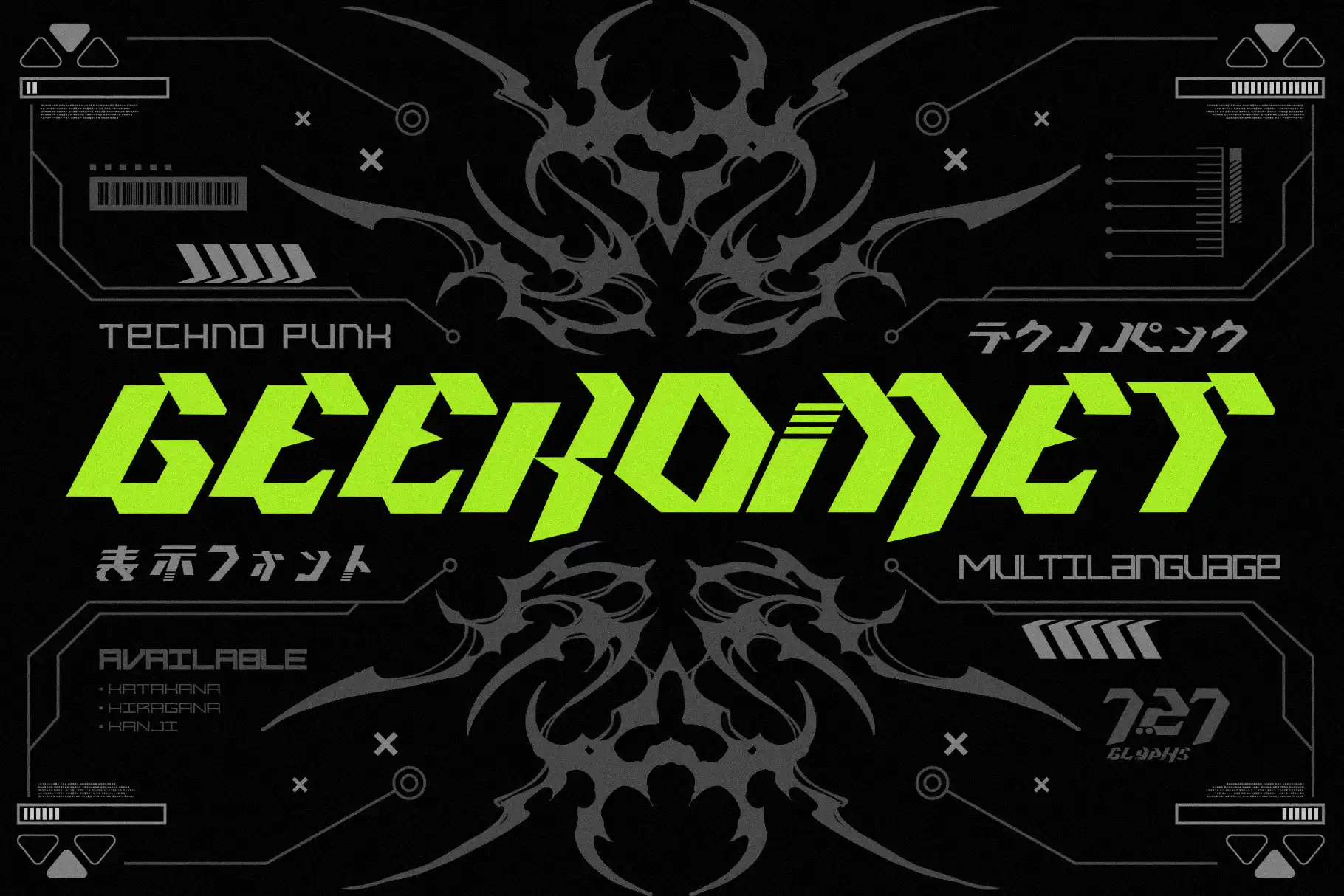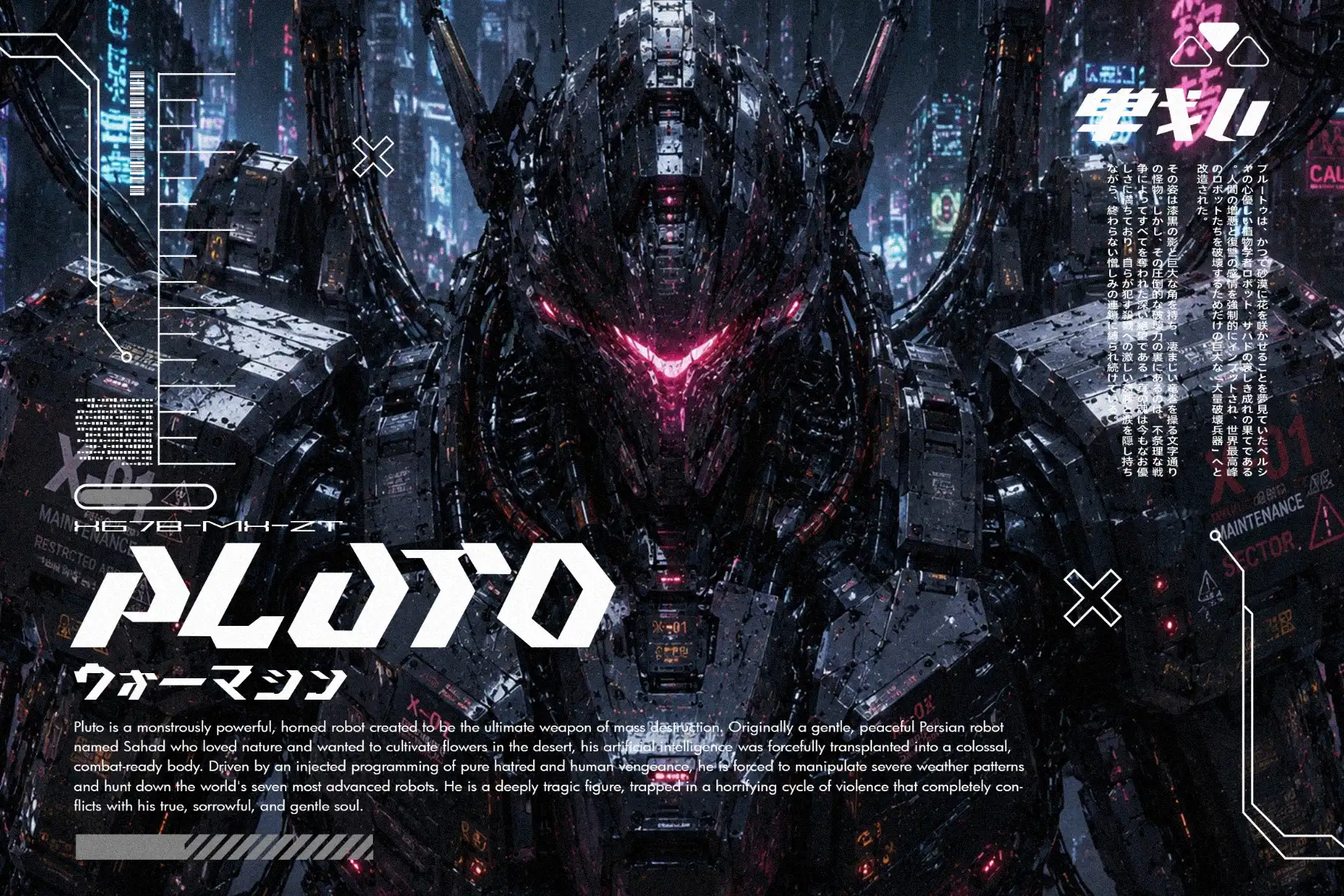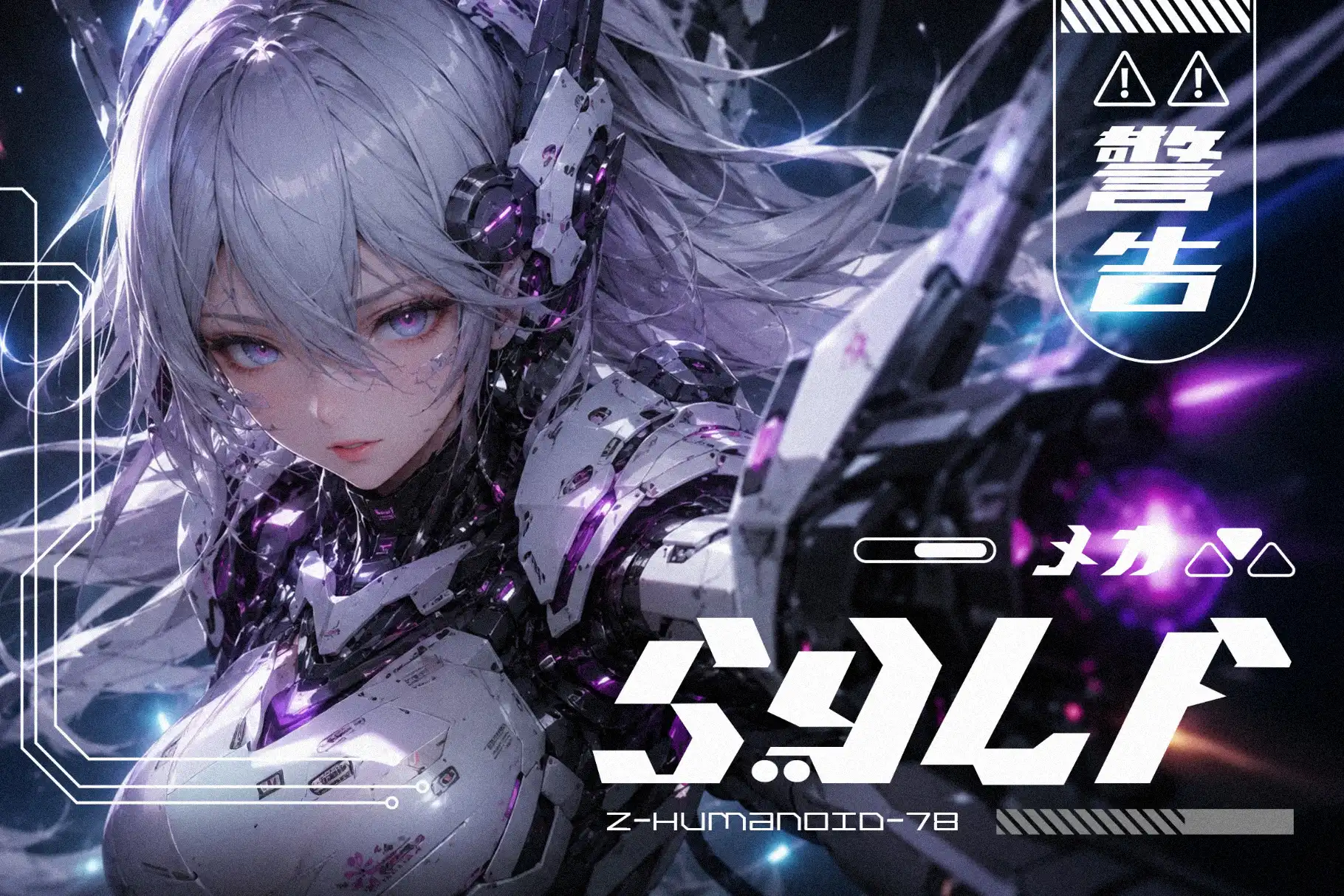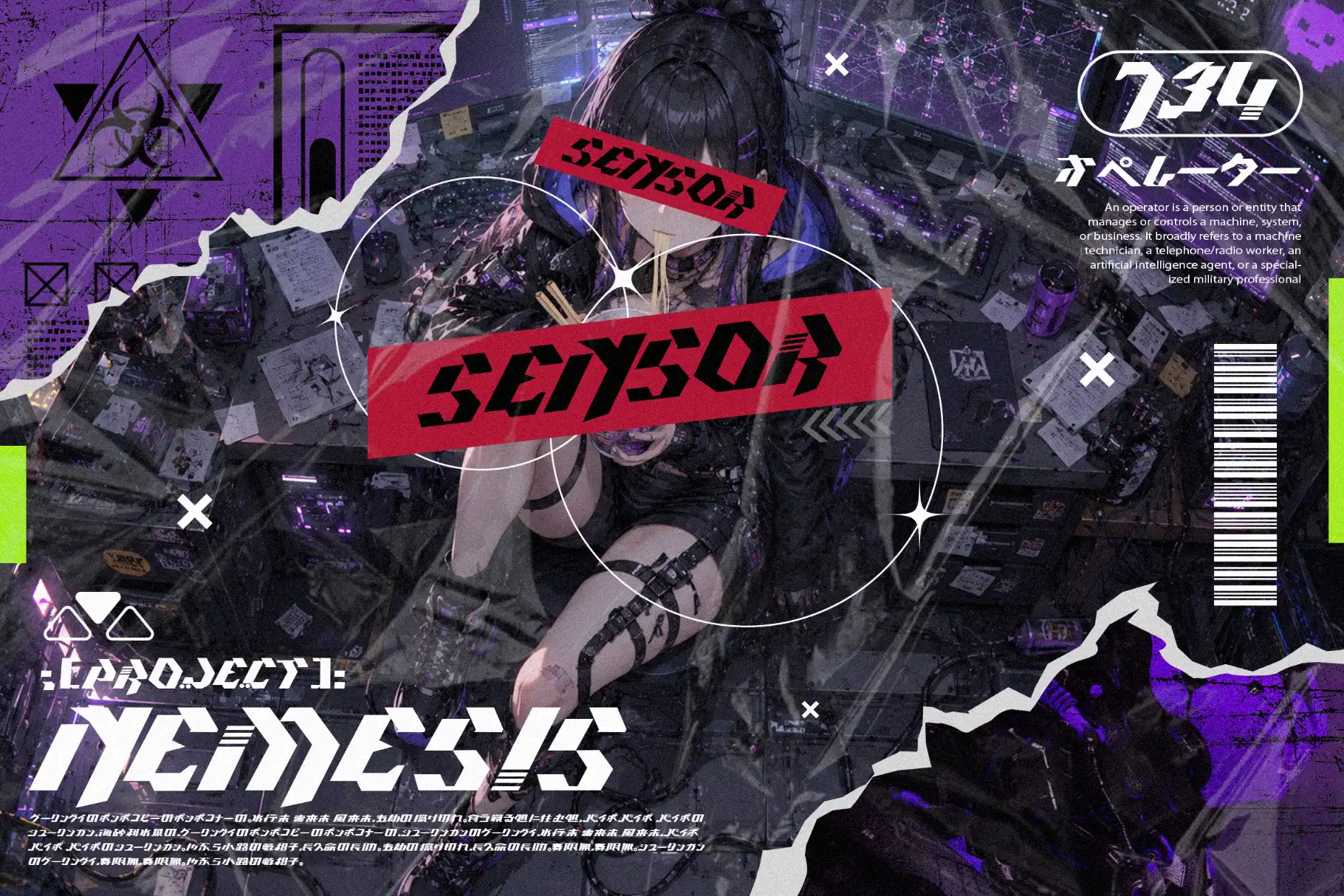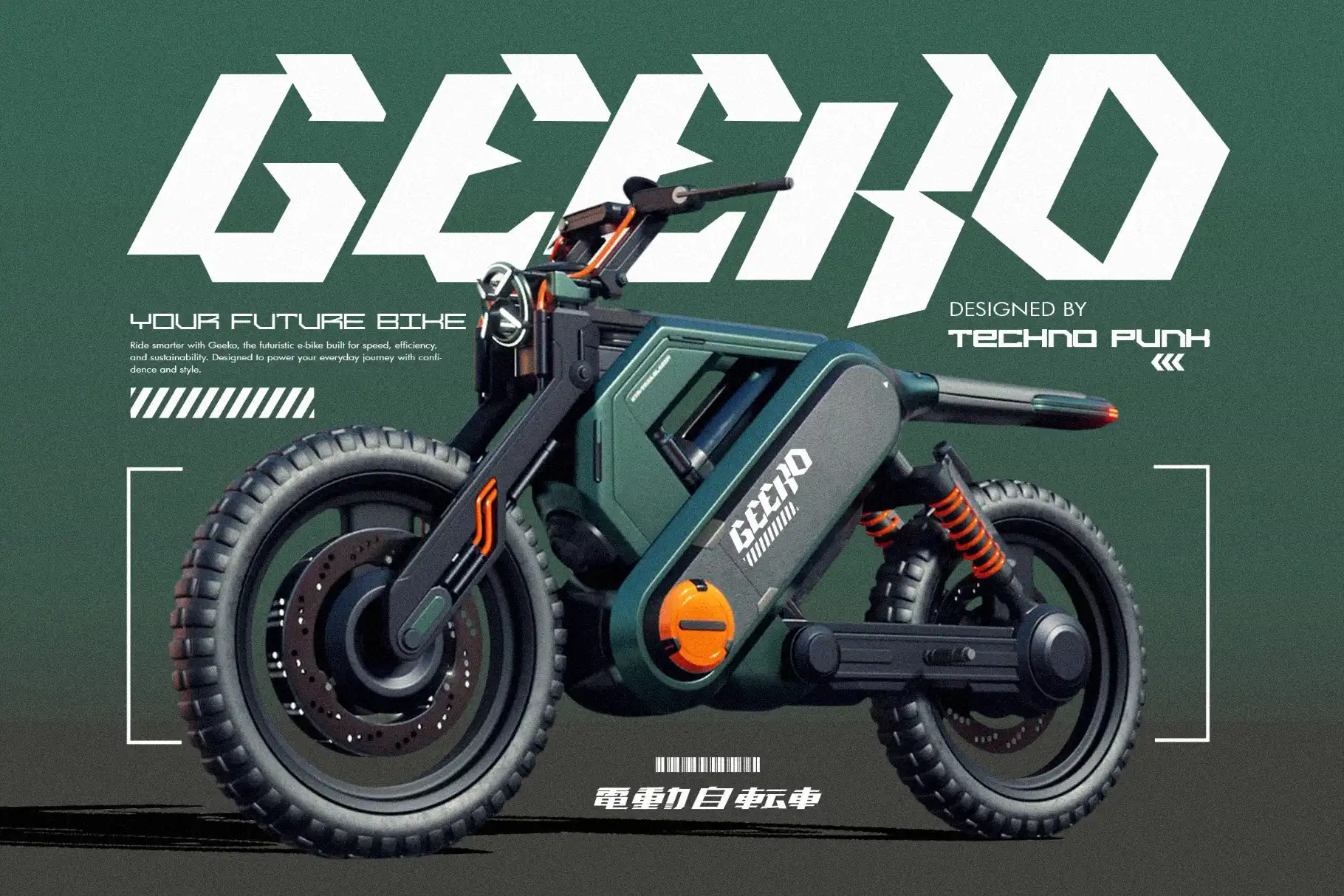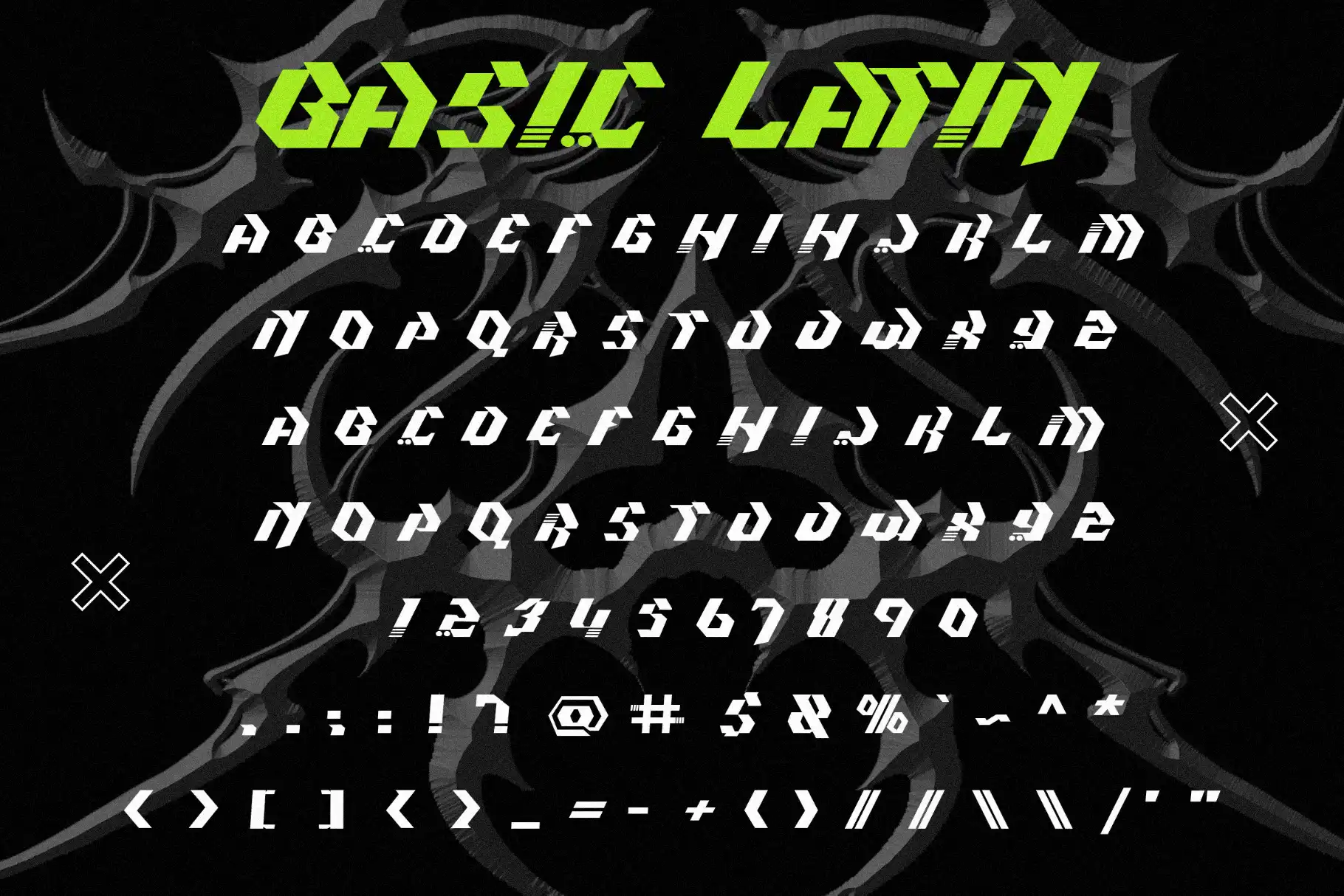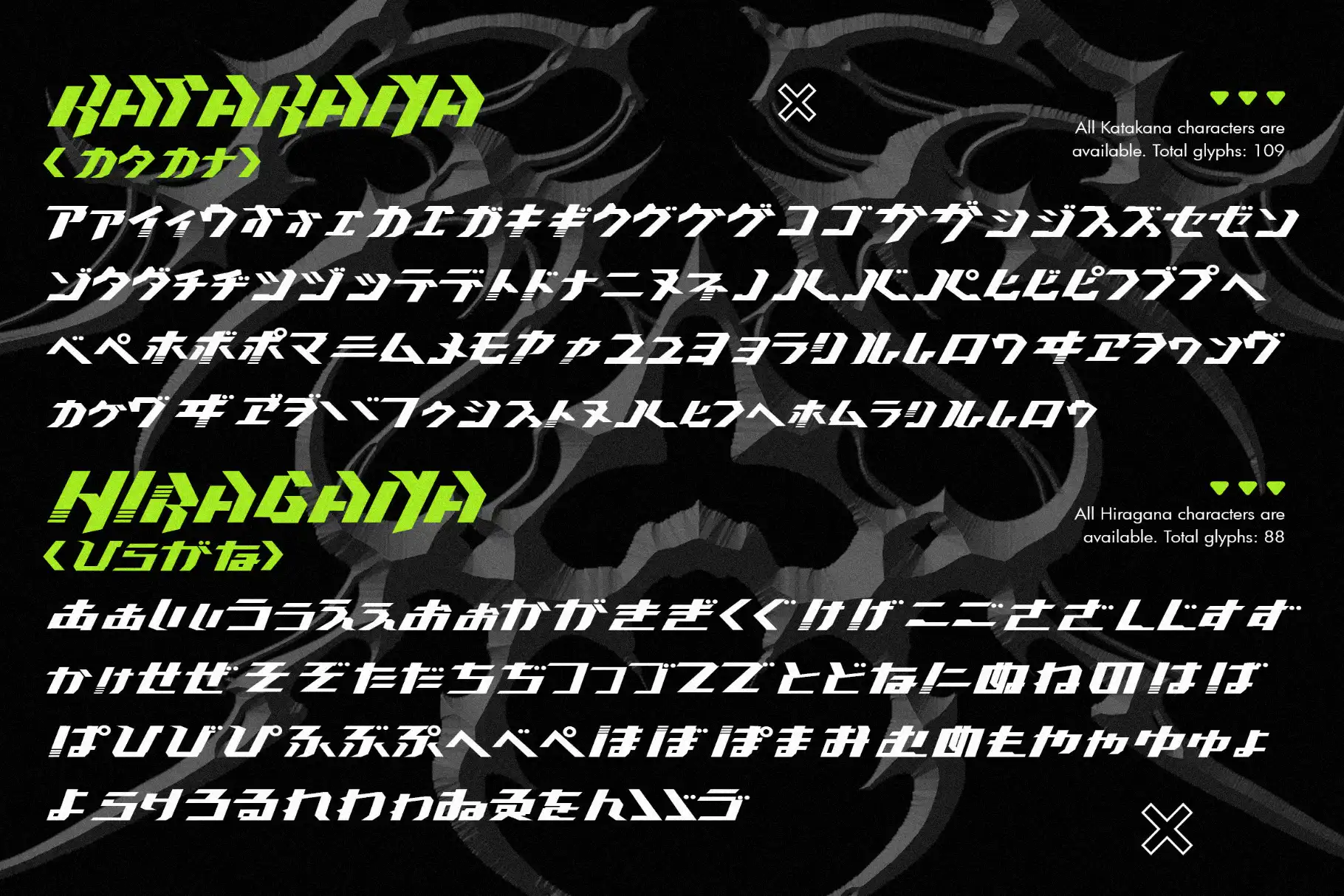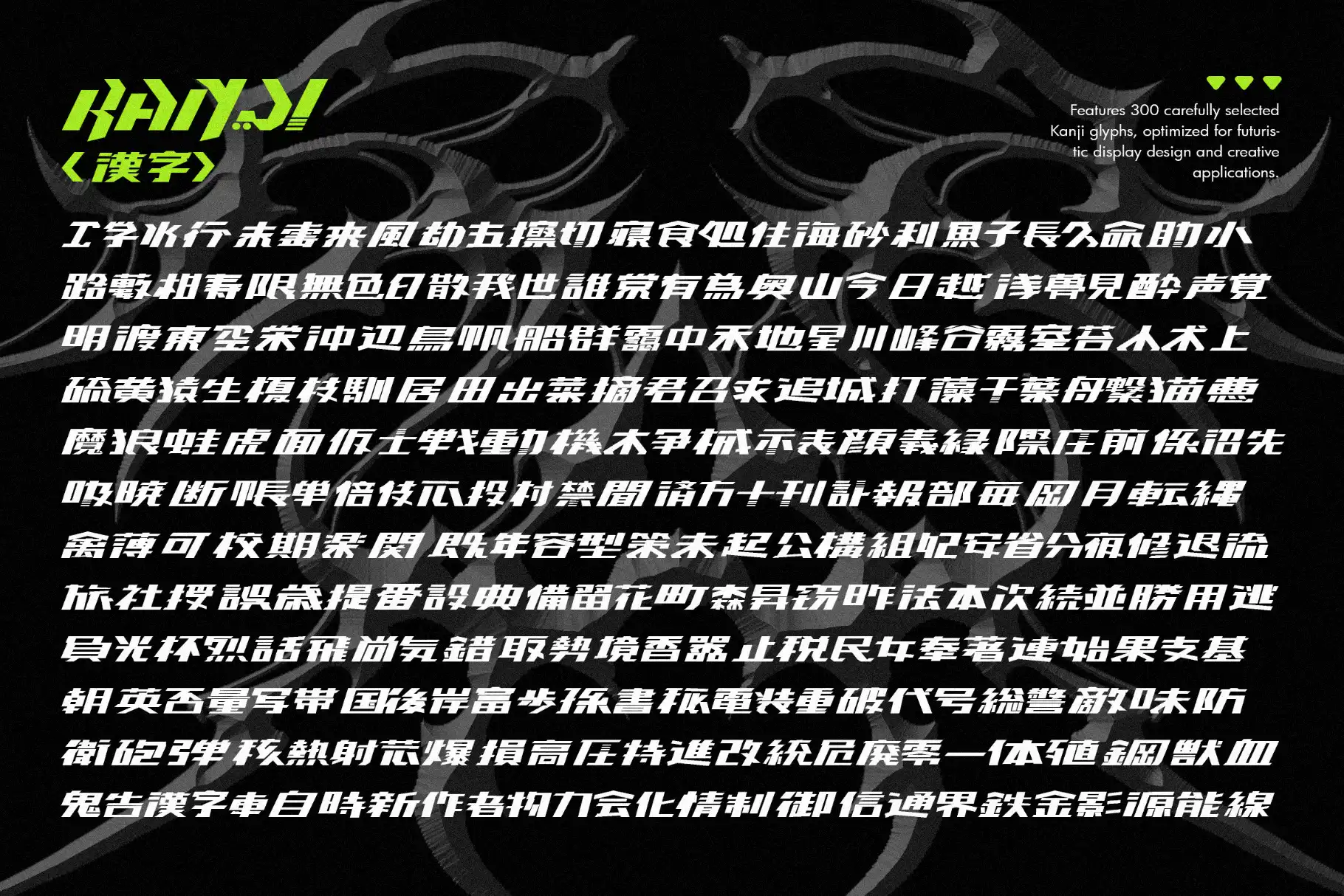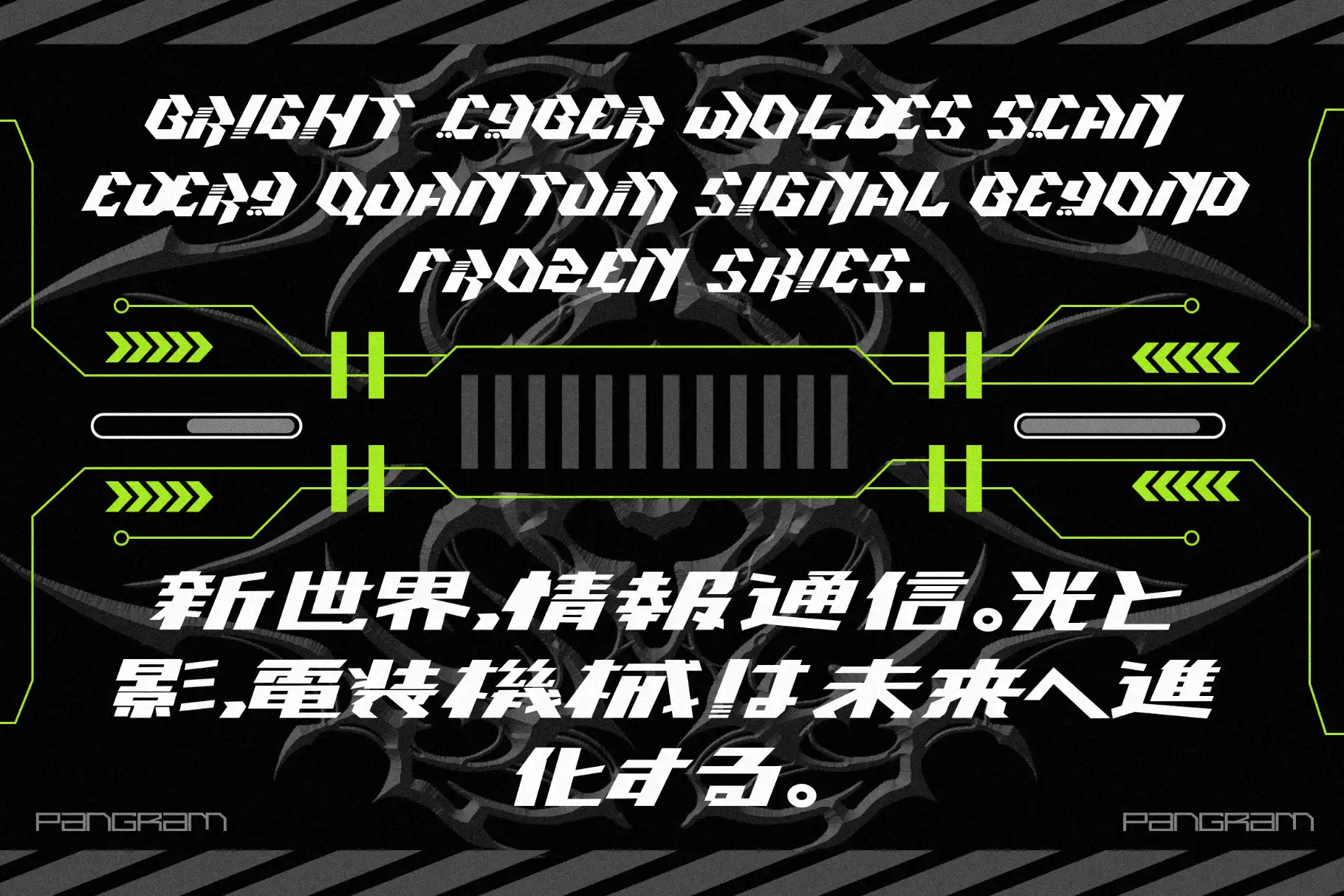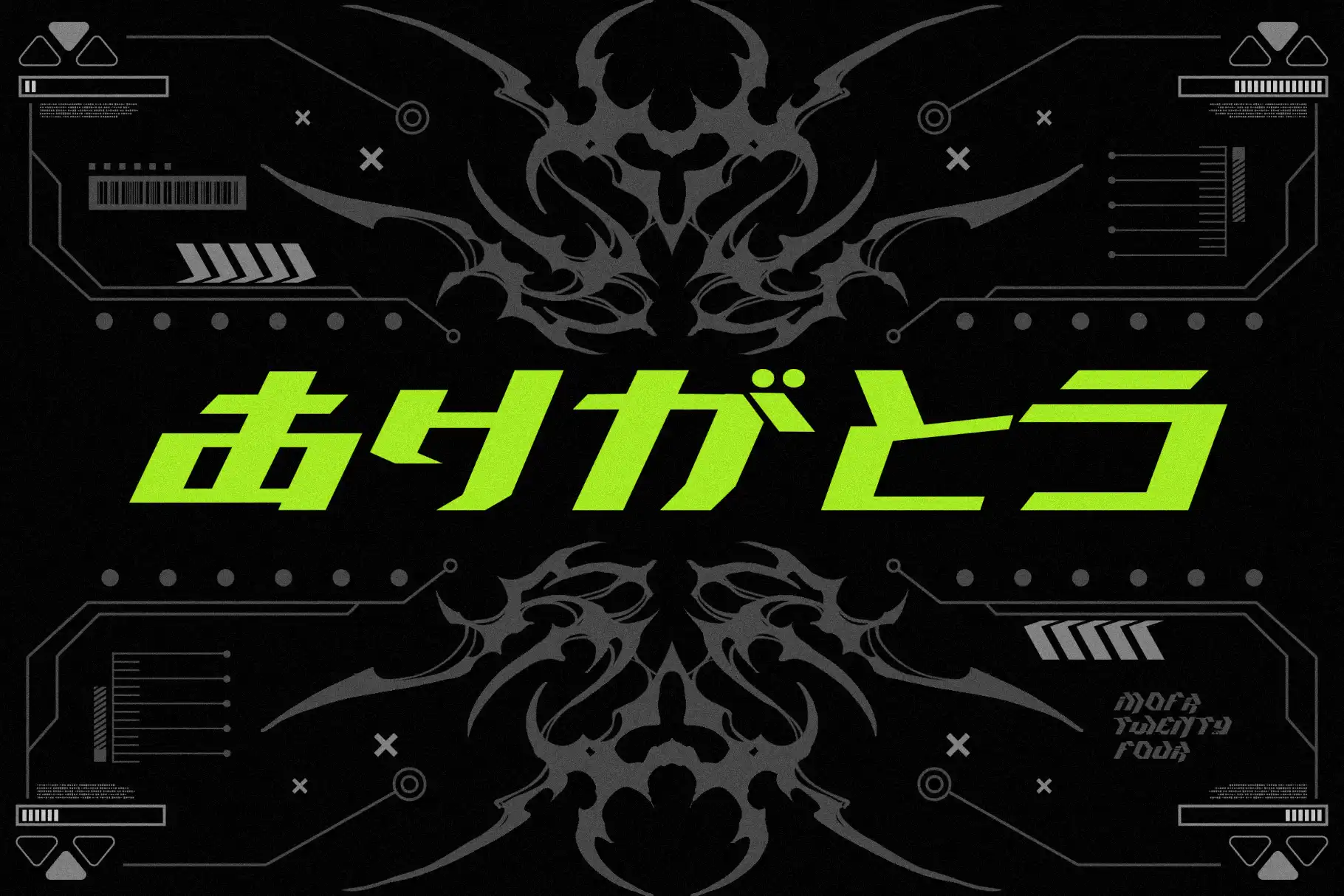
Geekomet
Geekomet Techno Punk Font for High-Impact Futuristic Design
Geekomet is a Techno Punk Font created for designers who want typography with a sharp, futuristic, and rebellious identity. Its angular letterforms bring together technological precision, cyberpunk energy, and an experimental punk attitude that immediately gives headlines a distinctive visual presence.
Designed for bold display work, Geekomet feels at home in gaming graphics, futuristic posters, technology branding, digital artwork, apparel, music visuals, and other projects where typography needs to become part of the visual concept rather than simply carry information.
The font includes all caps, numbers, punctuation, multilingual support, and availability for Katakana, Hiragana, and Kanji characters. This gives designers more flexibility when developing compositions influenced by Japanese technology culture, gaming aesthetics, cyberpunk environments, and contemporary digital design.
Techno Punk Font with a Sharp Digital Personality
Geekomet is built around an angular, structured visual language. Its letterforms feel engineered and energetic, combining hard-edged geometry with unconventional shapes that create an unmistakably futuristic personality.
The all-caps structure makes Geekomet especially effective for short, high-impact typography. Use it when you need a headline, title, logo treatment, campaign name, or visual statement that deserves to become a dominant part of the composition.
Its character works naturally with cyberpunk-inspired layouts, digital interfaces, industrial graphics, futuristic environments, gaming visuals, electronic music artwork, and experimental branding.
Rather than relying on decorative effects to create impact, Geekomet already brings a strong graphic silhouette to the page. This makes it useful for designers who want lettering that can hold its own beside photography, illustration, textures, interface graphics, and complex compositions.
Japanese-Inspired Futuristic Typography
One of the most distinctive aspects of Geekomet is the provided availability of Katakana, Hiragana, and Kanji characters.
These characters open up additional creative possibilities for typography influenced by Japanese visual culture. Designers can explore compositions that combine Latin lettering with Japanese writing systems for futuristic posters, gaming graphics, electronic music artwork, tech-inspired branding, apparel graphics, and experimental digital layouts.
The font also includes multilingual support as provided, making Geekomet more adaptable for projects that need more than a basic Latin-only character set.
For projects that rely on specific words, languages, or character combinations, it is always a good idea to test the exact text required before completing the final design.
Best Use Cases
Geekomet is designed for projects where typography needs energy, structure, and a recognizable futuristic identity.
• Cyberpunk posters
• Futuristic poster design
• Gaming titles
• Esports graphics
• Technology branding
• Logo and wordmark concepts
• Electronic music artwork
• Album and single covers
• YouTube thumbnails
• Streaming graphics
• Social media campaigns
• Science-fiction artwork
• Futuristic editorial headlines
• Event posters
• Streetwear graphics
• Apparel design
• Technology-inspired packaging
• Digital product covers
• Creative advertising
• Japanese-inspired typography
• Experimental display typography
Geekomet works particularly well at larger sizes where its unusual shapes and angular construction have enough space to become part of the overall visual language.
• All Caps
• Numbers
• Punctuation
• Multilingual Support
• Katakana Available
• Hiragana Available
• Kanji Available
Geekomet gives a project an immediate creative direction. Instead of starting with a neutral typeface and adding multiple effects to create a futuristic atmosphere, designers can begin with typography that already carries a strong technological and rebellious personality.